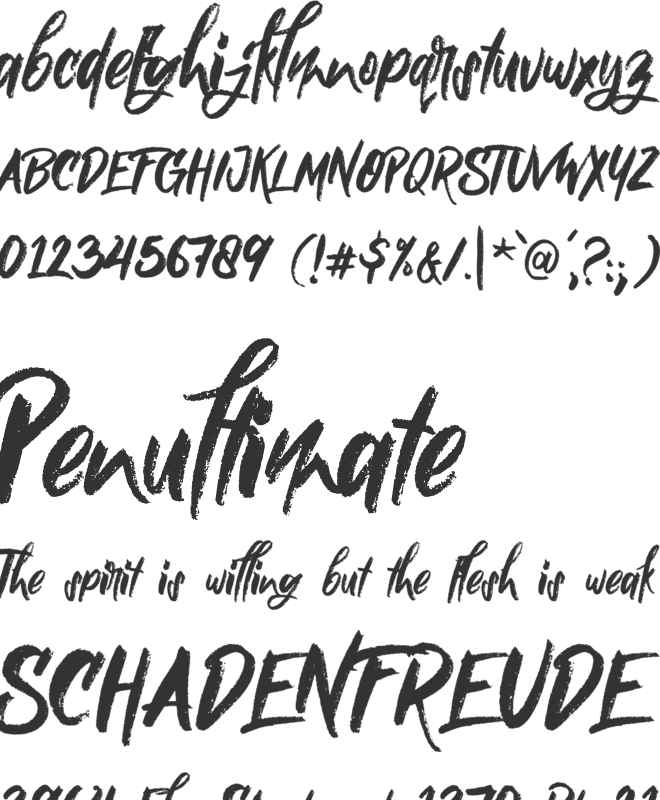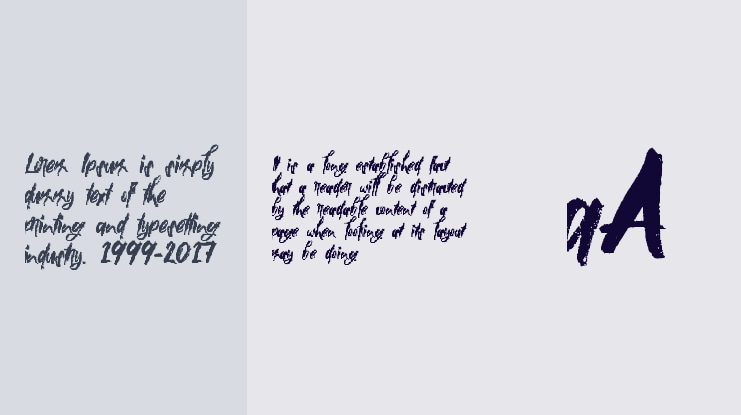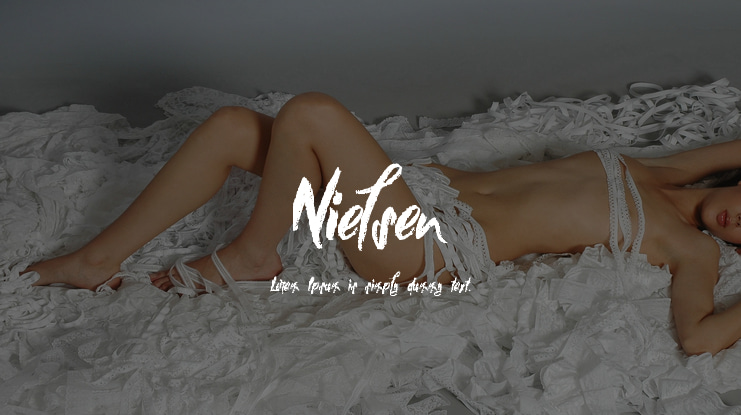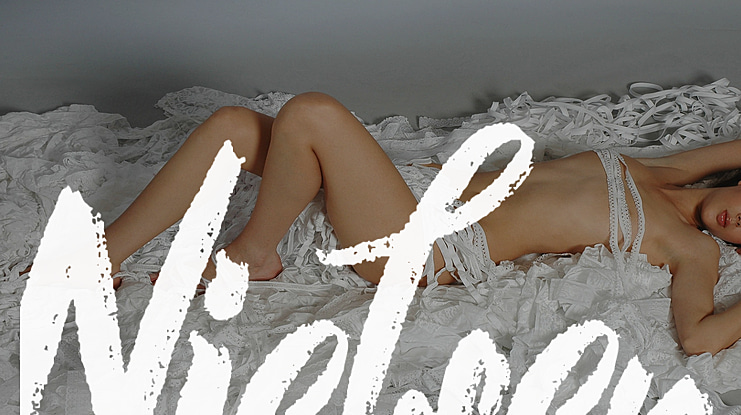
Nielsen Font
Nielsen is a rough brush font with many alternative characters and ligatures. Very suitable to be used for the manufacture quote text, logotype, header magazine, t-shirt design and concept handmade designs, ect